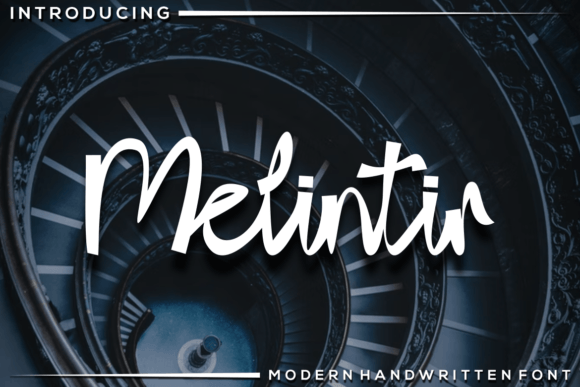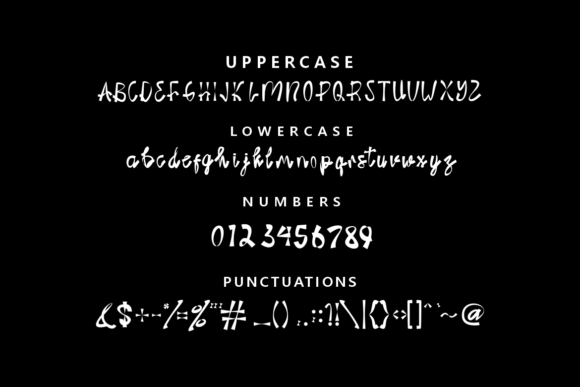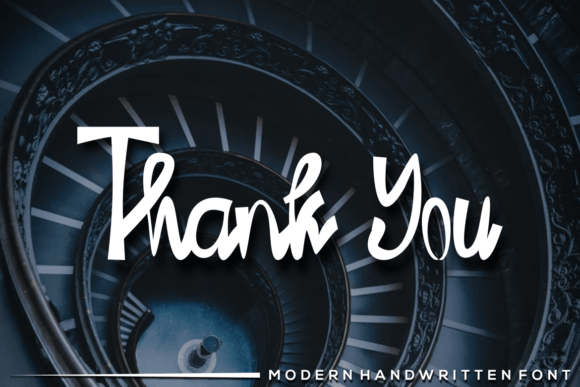
Discovering the Magic of Melintir Font
Do you remember the feeling of excitement when you stumble upon a new design resource that changes the way you approach your creative project? For designers, it’s a thrill that never gets old. I still recall the moment I discovered the enchanting Melintir Font – a handwritten script font that instantly captivated my attention. Its unique charm and versatility have made it a staple in my design arsenal.
Whether you’re working on a romantic wedding invitation, a heartfelt greeting card, or a stunning headline, the Melintir Font is guaranteed to add a touch of elegance and sophistication. With its high-quality design and transparent background, this font is a valuable asset for any designer looking to elevate their work. And the best part? It’s available for free download, making it an accessible treasure trove for creatives of all levels.
Key Features of Melintir Font
- High-quality design resource suitable for various creative projects, including logos, branding materials, and digital art.
- Transparent background allows for seamless integration with various design elements and backgrounds.
- Unique, stylish design with intricate details, making it an excellent choice for designers seeking a distinctive look.
- Supports various languages, including Latin, making it a versatile option for international creative projects.
Honest Review: Melintir Font
I recently had the opportunity to work with the Melintir Font in a creative project and I must say it’s been a game-changer. As a designer, I’m always on the lookout for high-quality design resources that can elevate my work and save me time. The Melintir Font definitely delivers.
- High-quality design that’s perfect for logos, titles, and headings
- Transparent background for easy combination with other design elements
Limitations: ⚠️ While the Melintir Font is a great resource, I do wish it came in more weights and styles. This would make it even more versatile and useful for a wider range of design projects.
Overall, I’m thoroughly impressed with the Melintir Font and would highly recommend it to any designer looking for a high-quality, versatile font that’s easy to use.
Melintir Font: A High-Quality Design Resource
Tips for Getting the Most Out of Melintir Font
Common Use Cases for Melintir Font
Melintir Font is a versatile design resource that can be used for a variety of projects, including logos, social media graphics, and business cards. Its high-quality design makes it an ideal choice for any creative project.